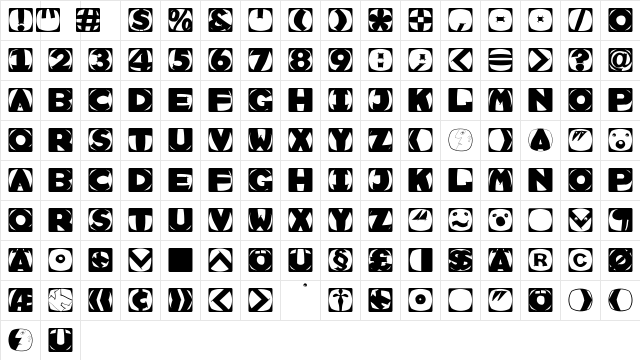
RememberScribbledInvers Regular
Design Context for RememberScribbledInvers Typeface
RememberScribbledInvers is a composed and adaptable typeface that performs quietly and consistently across a wide range of design contexts.